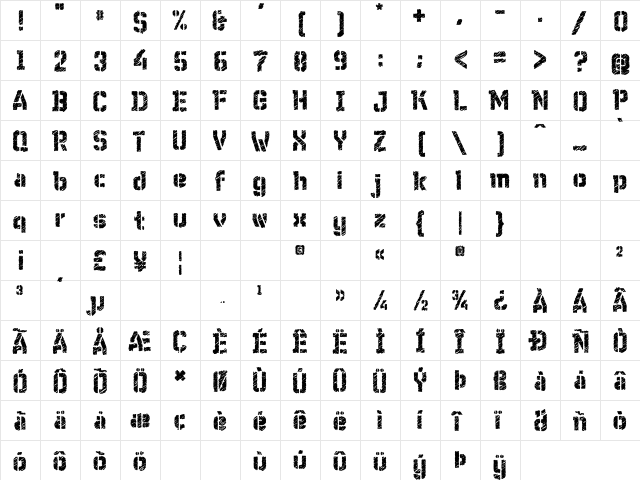
WC Wunderbach Rough Bta DemiBold
Design Context for WC Wunderbach Rough Bta Typeface
WC Wunderbach Rough Bta trades polish for personality, using distressed and eroded forms to bring grit and attitude to creative work.
A strong fit for alternative music projects, graffiti-adjacent design, and anything that deliberately resists polish.
Pro Tip: Use WC Wunderbach Rough Bta at larger sizes where the texture and irregularity of each letterform can be clearly seen — it loses its character at small sizes.